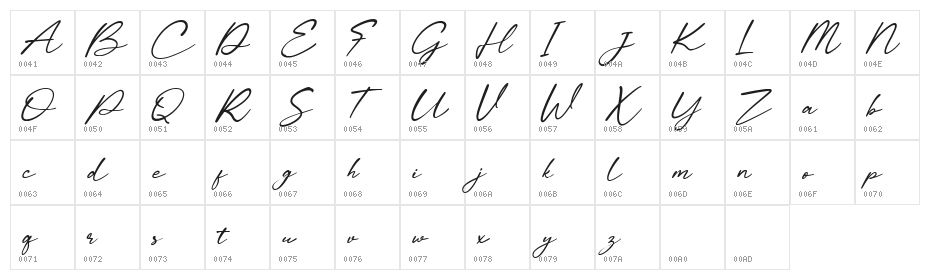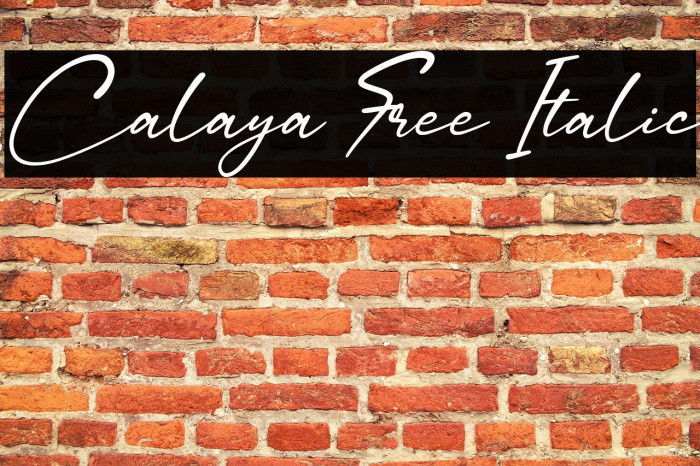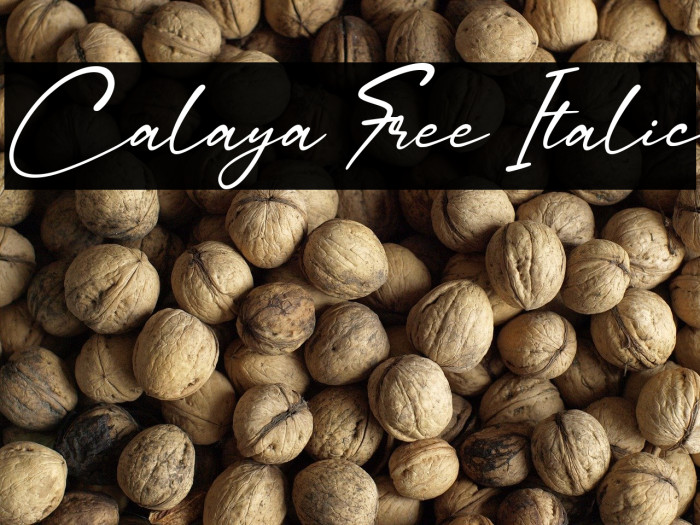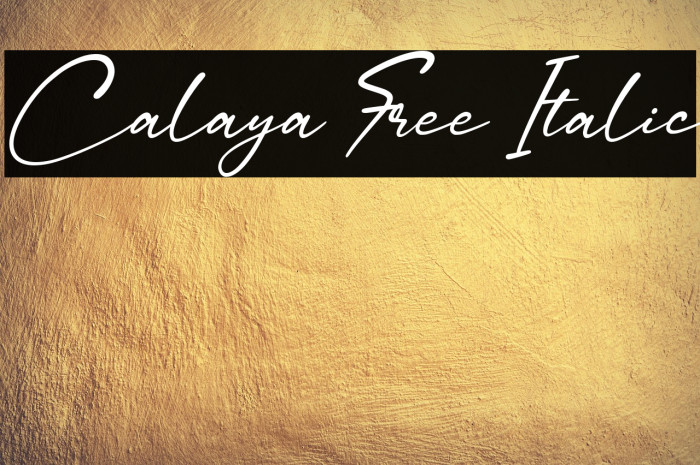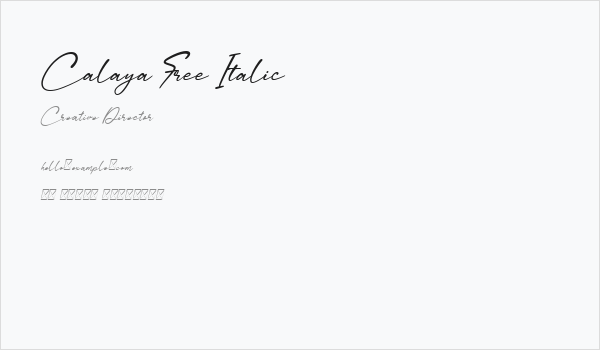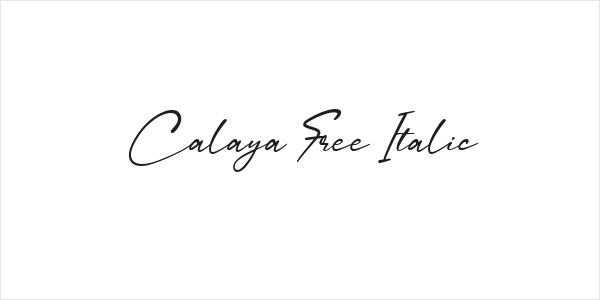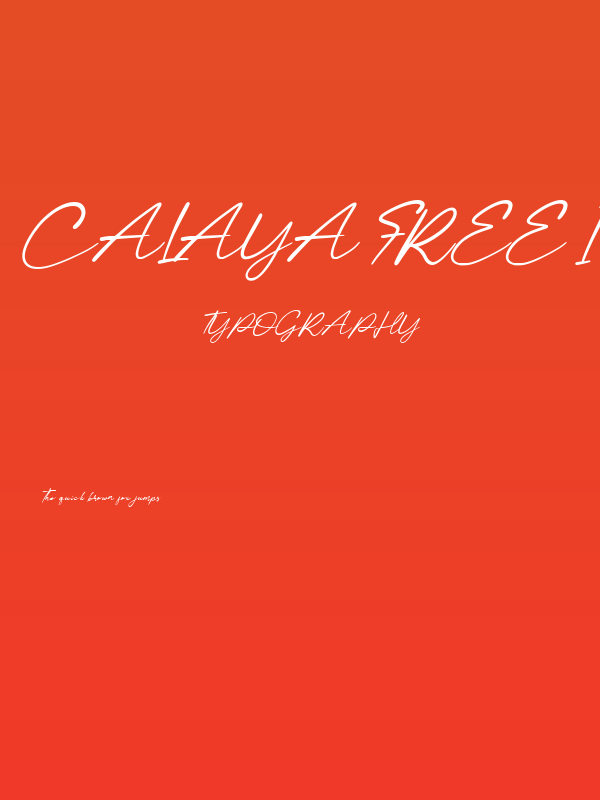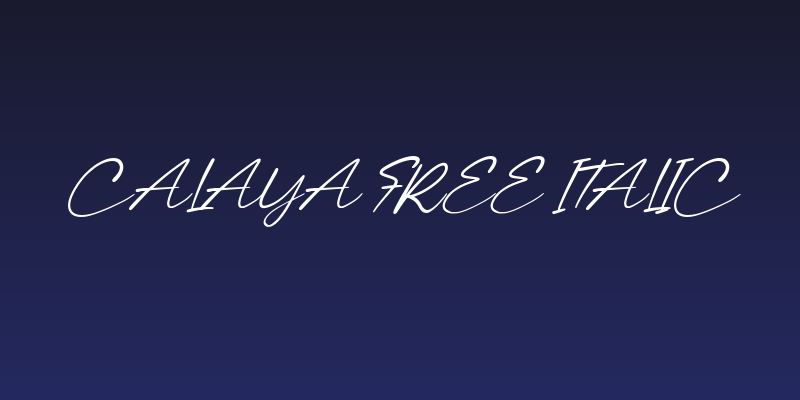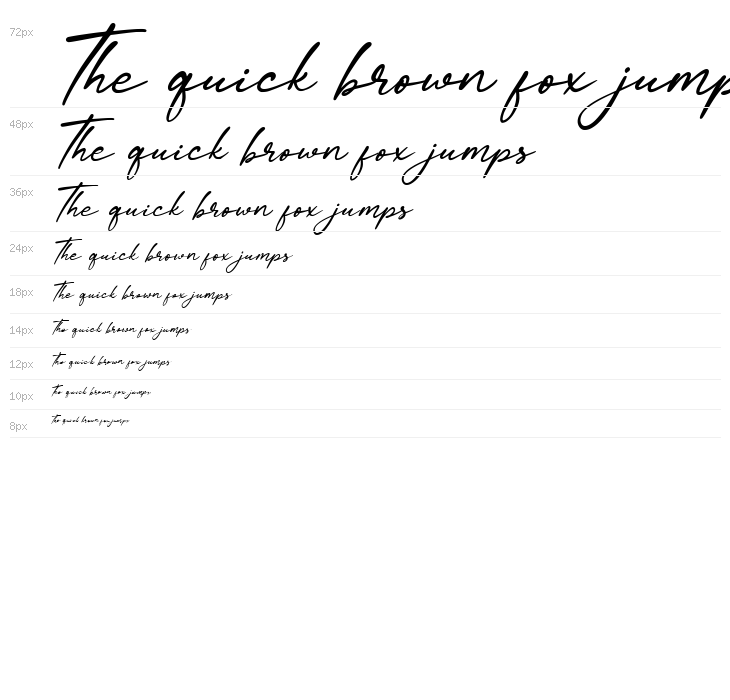
Calaya Free Italic Font
Calaya Free Italic Description
This font exhibits a fluid and elegant script style, characterized by its smooth, cursive strokes that mimic the natural flow of handwriting. The letters are connected, creating a seamless and continuous appearance. The font's italic nature adds a dynamic and sophisticated touch, making it suitable for creative and expressive designs. The uppercase letters maintain a consistent height, while the lowercase letters feature distinctive loops and curves, enhancing its decorative appeal. The overall design is both graceful and legible, offering a modern twist on traditional calligraphy.